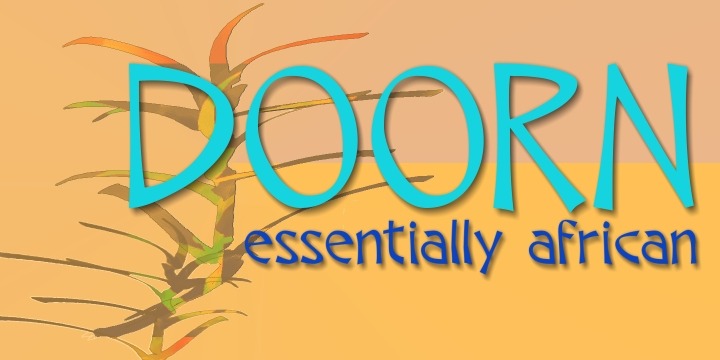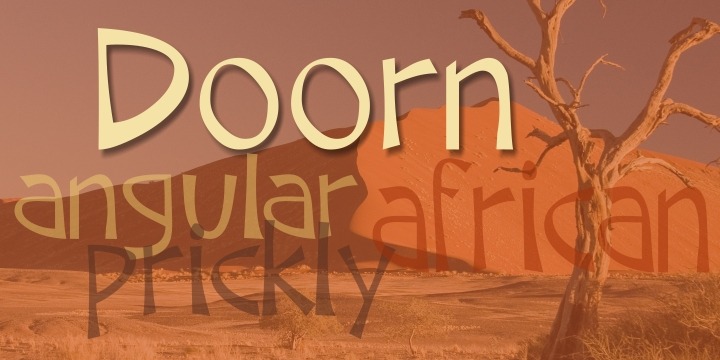
Doorn
Buy NowIn its loose, angular forms, it is reminiscent of thorn bushes dotting the immense Kalahari desert. Spiky and freeform, Doorn calls to mind the irregular hand-drawn lettering found on wooden signs outside small shops in tiny African villages.
The font contains all upper and lower case characters, punctuation, numerals and mathematical operators, as well as all accented characters used in European languages.